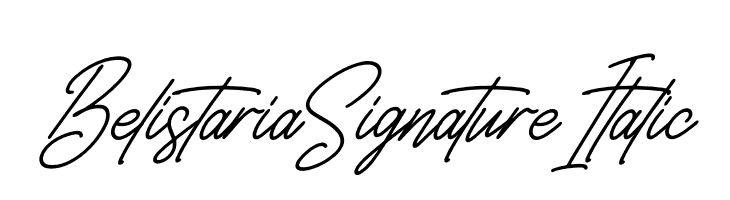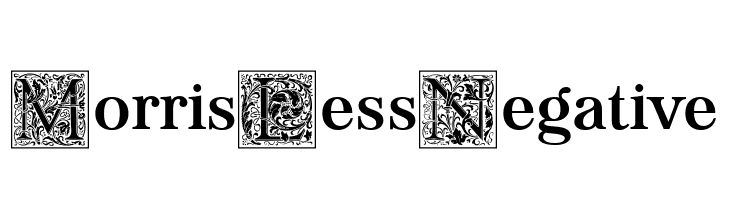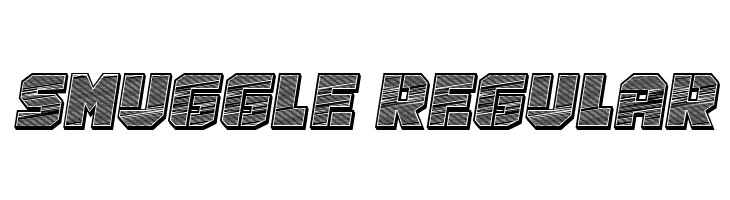
A decorative serif font with ornate uppercase letters and classic serif lowercase characters.
Playful handwritten script font.
A bold, decorative font with a tubular, three-dimensional design.
A bold, hand-drawn font with dynamic and edgy characteristics.
A fluid, cursive font with a natural handwritten style.
A graceful and flowing script font with elegant curves and modern flair.
A playful, handwritten font with bold, irregular strokes and a whimsical style.
A playful and whimsical script font with flowing, interconnected letters.
A bold, decorative font with a retro inline design.
A bold, three-dimensional font with a striped pattern and geometric shapes.